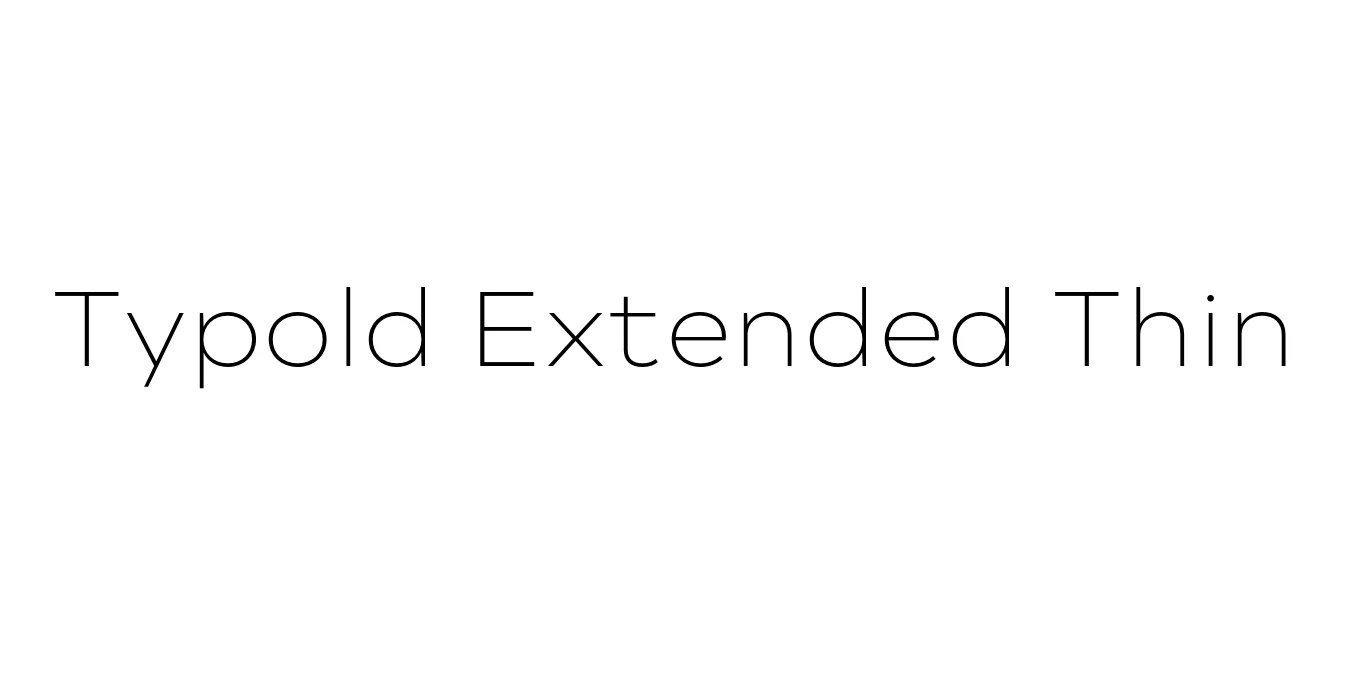
Typold Extended Thin
Designed by Jonathan Hill
| Similar Fonts | Montserrat, Gotham, Europa, Avenir, Geomanist |
Typold Extended Thin is a refined geometric sans-serif designed by Jonathan Hill for The Northern Block. This typeface is part of the larger Typold family, which was developed as an evolutionary improvement over traditional geometric designs to offer better balance, legibility, and a more contemporary feel. The Extended width provides a spacious and sophisticated appearance that is particularly effective in modern layouts where horizontal presence is desired.
The Thin weight of the Typold Extended variant showcases hairline-thin strokes and precise mathematical construction. This specific style is ideal for large-scale applications, such as architectural signage, luxury branding, and high-fashion editorial designs, where its elegant and minimalist aesthetic can be fully appreciated. Its clean lines and airy proportions make it a favorite for designers looking to convey a sense of premium quality and technological precision.
Typold Extended Thin Best Uses
Perfect for large, airy headlines in luxury magazines or minimalist websites.
Ideal for creating high-end, sophisticated brand identities and logos.
Great for large-format wall graphics and architectural signage.
Excellent for pull-quotes and stylistic layouts in high-fashion media.